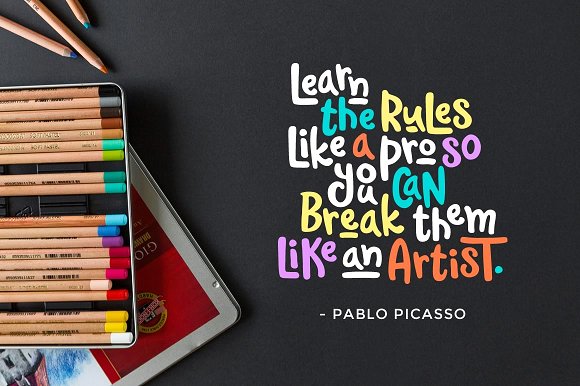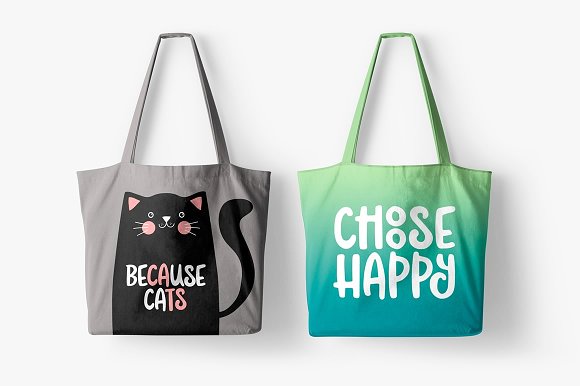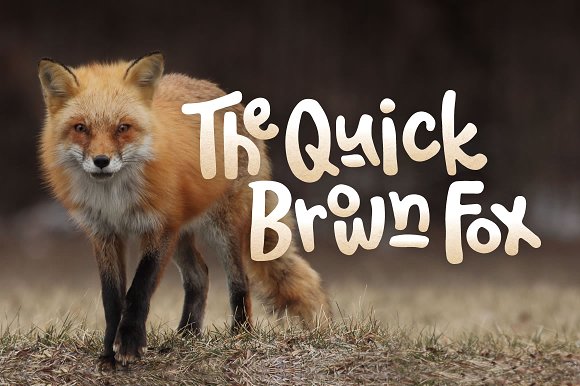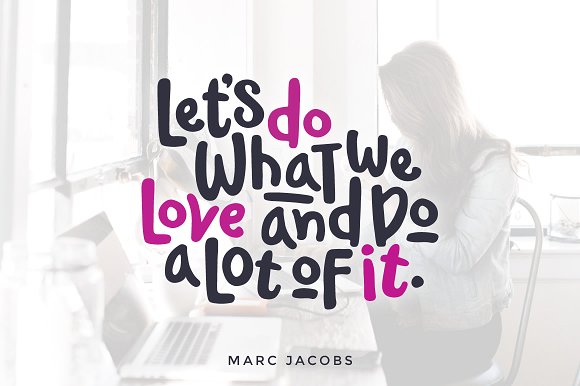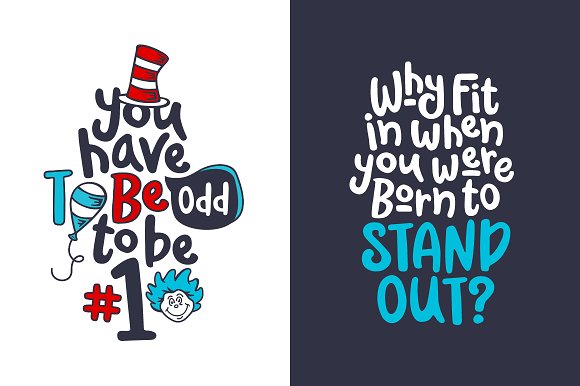
Waliroo Font
Introducing: Waliroo! A creative new font ready to add some personality to any project. These characters are just waiting to be tilted, flipped, switched, scaled, and even (gasp) stretched! They are willing to do whatever it takes to fit just right.